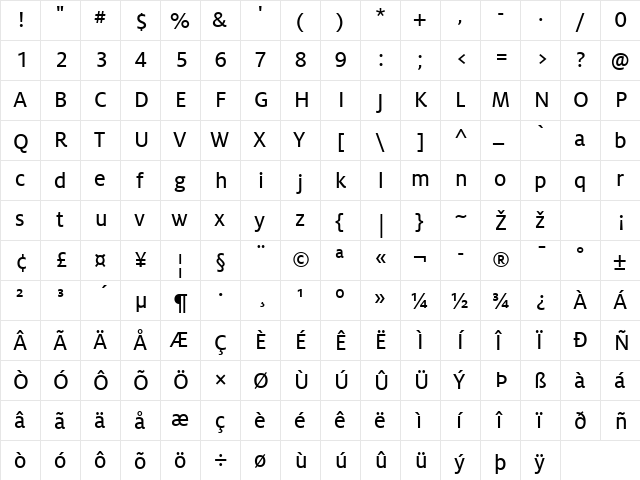
MiloTF-Text Regular
| Foundry | FSI Fonts und Software GmbH |
| Designer | Mike Abbink |
Design Context for MiloTF-Text Typeface
MiloTF-Text takes a measured approach to typography — its balanced proportions and neutral character make it a reliable workhorse for both digital and print work.